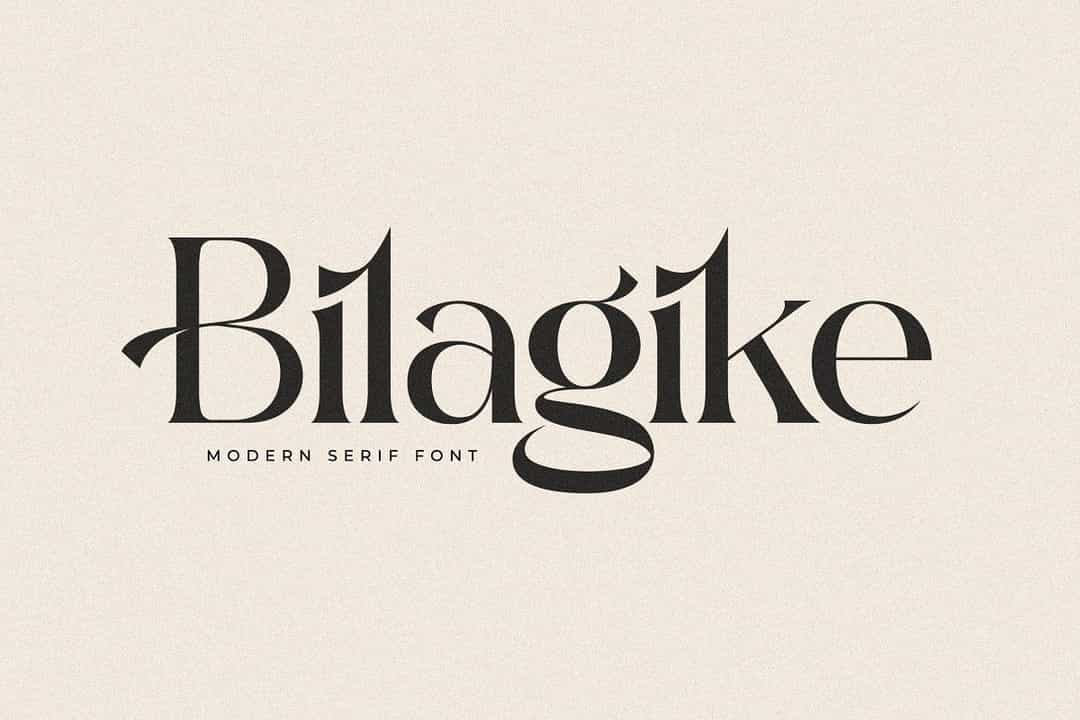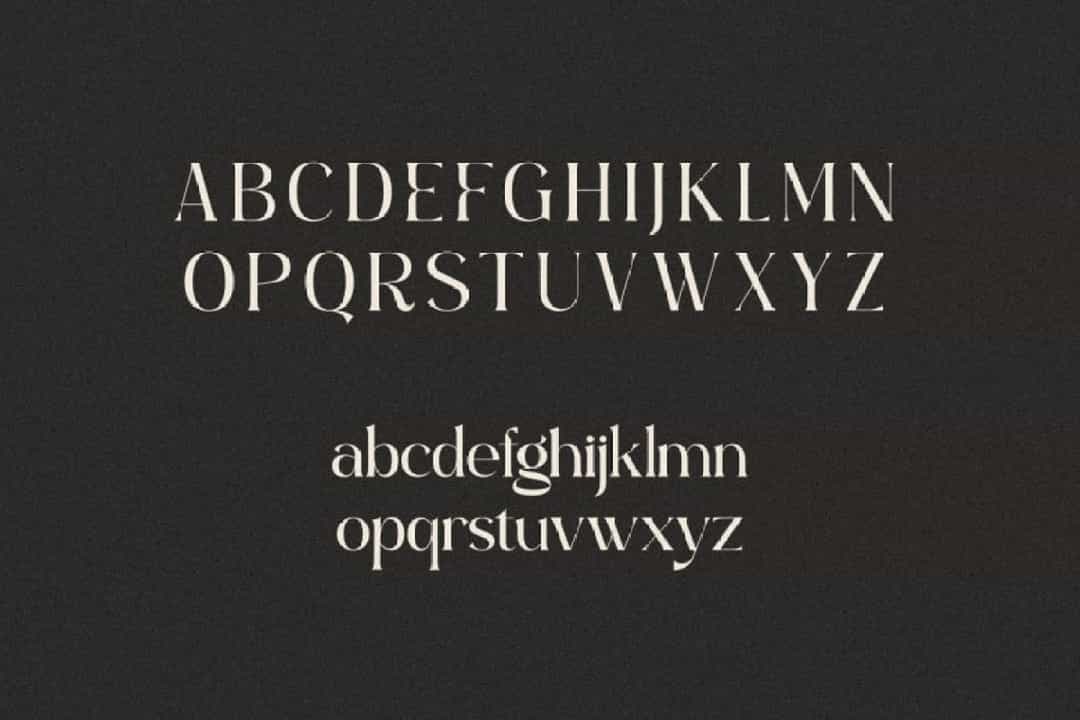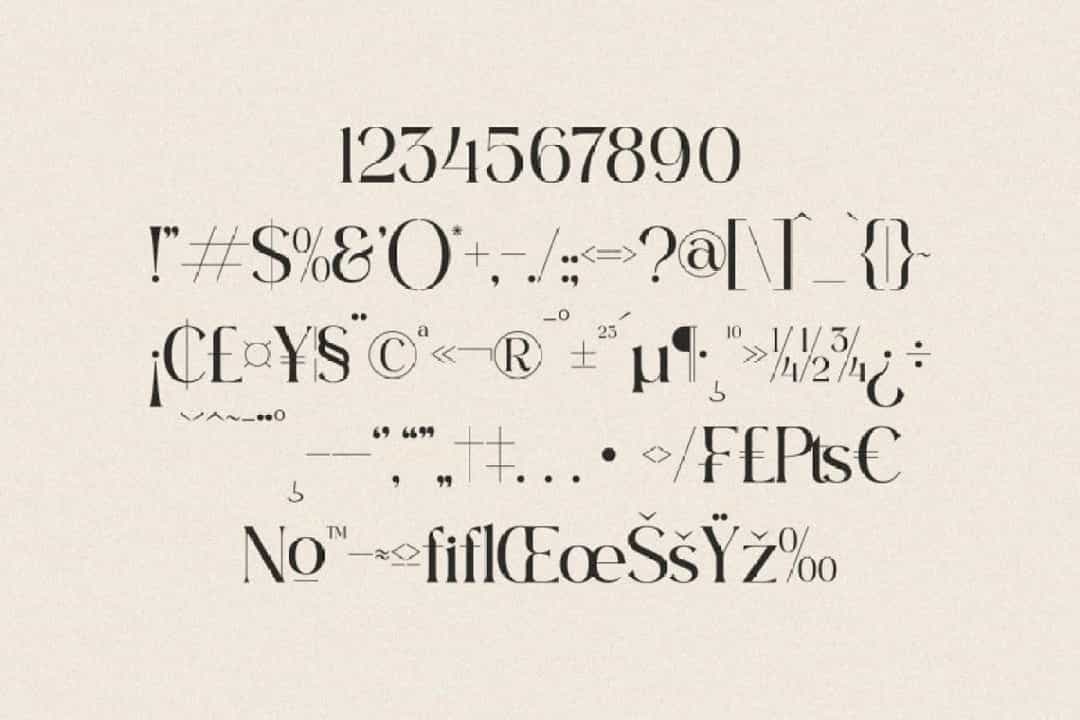
Bilagike is a contemporary yet classic serif font with an original style and modern appeal, ideal for creating luxurious logos, movie or book covers as well as fashion brands, magazines letters and clothing quotations.